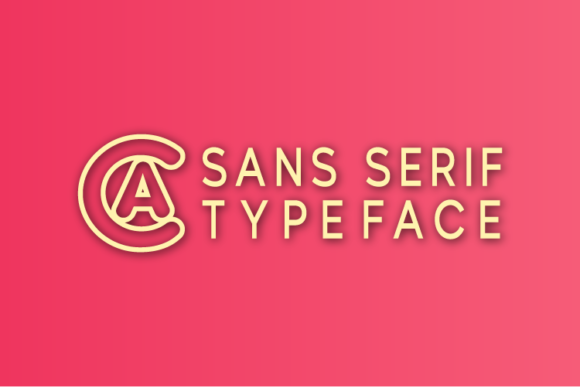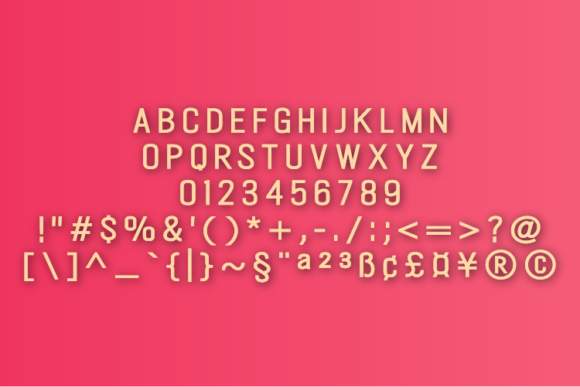
Introduction to Hysteril Font
You know that moment when you’re working on a creative project and you just can’t seem to find the right font to tie everything together? The words on your page are dull, and no matter what you try, nothing seems to pop. That’s where Hysteril Font comes in – a sleek and modern sans serif font that can elevate any design to the next level.
With its clean lines and minimalist aesthetic, Hysteril Font is the perfect design resource for anyone looking to add a touch of sophistication to their creative project. Whether you’re working on a website, brochure, or social media campaign, this high-quality font is sure to make your design stand out. And the best part? It’s completely free to download, so you can experiment with it to your heart’s content without breaking the bank.
So why settle for a generic font when you can add a little extra oomph to your design with Hysteril Font? With its transparent background and versatility, this font is the perfect addition to any creative project.
Key Features of Hysteril Font
- Transparent background for seamless integration into various designs
- Designed with a unique aesthetic, perfect for modern and minimalist designs
- Great for use in digital and print materials, including logos, business cards, and brochures
Honest Review: Hysteril Font
I recently had the chance to try out the Hysteril Font for a creative project, and I must say I was impressed. As a designer, I’m always on the lookout for high-quality design resources that can elevate my work. The Hysteril Font did not disappoint. ✨
The font itself is quite unique, with a bold and playful feel that works well for a variety of applications. I particularly liked the fact that it’s available for free download, making it a great resource for designers on a budget. The transparent background option also allowed me to easily overlay the font on top of other design elements, giving me a lot of creative freedom.
What I liked:
- Unique and playful design
- High-quality font with a transparent background
- May not be suitable for formal or professional applications
- Limited character set (may require additional font support)
Overall, I was impressed with the Hysteril Font and would definitely recommend it to designers looking for a creative and high-quality font for their next project. Just be aware of the potential limitations, and use it wisely!
The Hysteril Font is suitable for various design projects, including logos, brochures, business cards, and presentations. Its high-quality design makes it an excellent choice for creative projects that require a professional touch.
What is the quality of Hysteril Font, and is it suitable for high-quality printing?
Hysteril Font is designed to deliver high-quality results, making it suitable for a wide range of printing applications, including business cards, brochures, and signage. The font’s high-quality design ensures crisp, clear text and graphics, even at large sizes or in high-resolution prints.